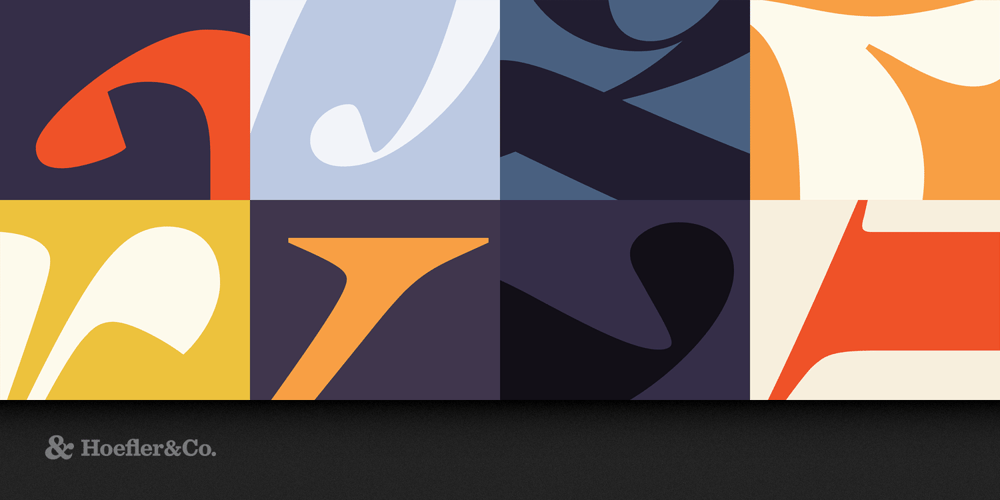
Quarto Font Family was designed by Sara Soskolne with Jonathan Hoefler and published by Hoefler & Co.. Quarto contains 10 styles and family package options. A fiery display face rooted in one of typography’s most significant periods, Quarto is a study in contrast and control. The Quarto typeface was designed by Sara Soskolne with Jonathan Hoefler in 2007. Inspired by the work of Hendrik van den Keere (1540-1580), the Flemish punchcutter recognized as an exemplar of the Dutch Old Style, Quarto includes both an original italic and a range of weights, both typographic innovations unknown in Van den Keere’s time. Quarto was created for Condé Nast Portfolio magazine, in whose pages the typeface first appeared in 2007, and expanded into a larger family of typefaces for publication in 2014. From the desk of the designer: Beginning in 1570, the Flemish punchcutter Hendrik van den Keere created some of the world’s first display types, large-size alphabets for choirbooks that were designed to be read at a distance. These typefaces, with their dark strokes and compact proportions, grew out of the gothic tradition of the north, and were characteristic of a regional style that came to be known as the “Dutch taste.” This aesthetic would flower into the Baroque style that would dominate printing for the next 150 years, giving typography some of its most enduring typefaces, including Van Dijck, Janson Text, and Caslon. Quarto is a modern adaptation of the Van den Keere style, designed for use at sixteen point and above. We selected Van den Keere’s Two-Line Double Pica Roman of 1570–1573 as a foundation for the family, an arresting design marked by striking dramatic tensions. Its consistently dark strokes are offset by bright, crisp serifs; its resolute verticality is punctuated by moments of lavish roundness. This theme of “controlled contrast” helped propel Quarto into territory unexplored by Van den Keere, including an italic whose fluid motions are checked by a steadfast rhythm, and heavier weights whose density is invigorated by sudden geometric turns and sharp corners. Like the Baroque models that inspired it, Quarto’s large x-height, short descenders, and trim serifs invite both tight tracking and solid leading, making it an excellent choice for headlines both in print and on screen.